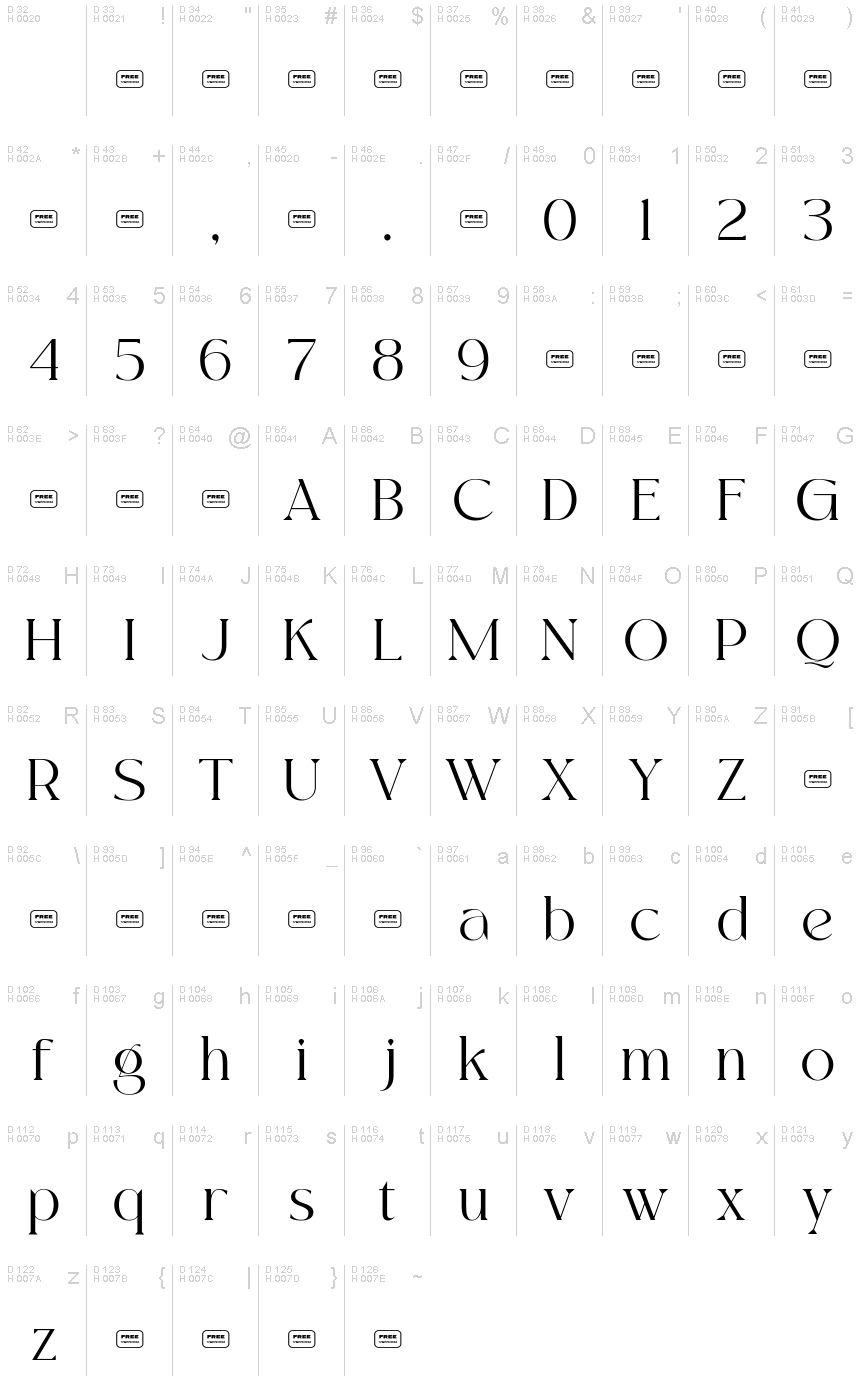
Kayonest, designed by Typefactoryco, is a modern serif font that marries the elegance of classical typography with a fresh contemporary flair. It is beautifully crafted to add a touch of sophistication and understated luxury to any design project. With its exquisite lines and versatile nature, Kayonest promises to deliver a subtle yet impactful presence in various applications.
This font shines in settings where both legibility and style are paramount. From the pages of a boutique magazine to the branding of upscale products, Kayonest offers designers a tool for creating timeless elegance with just enough modern edge to stand out. Its potential reaches into book covers, editorial headings, and high-end advertising campaigns—anywhere that calls for an air of distinction without overpowering the senses.